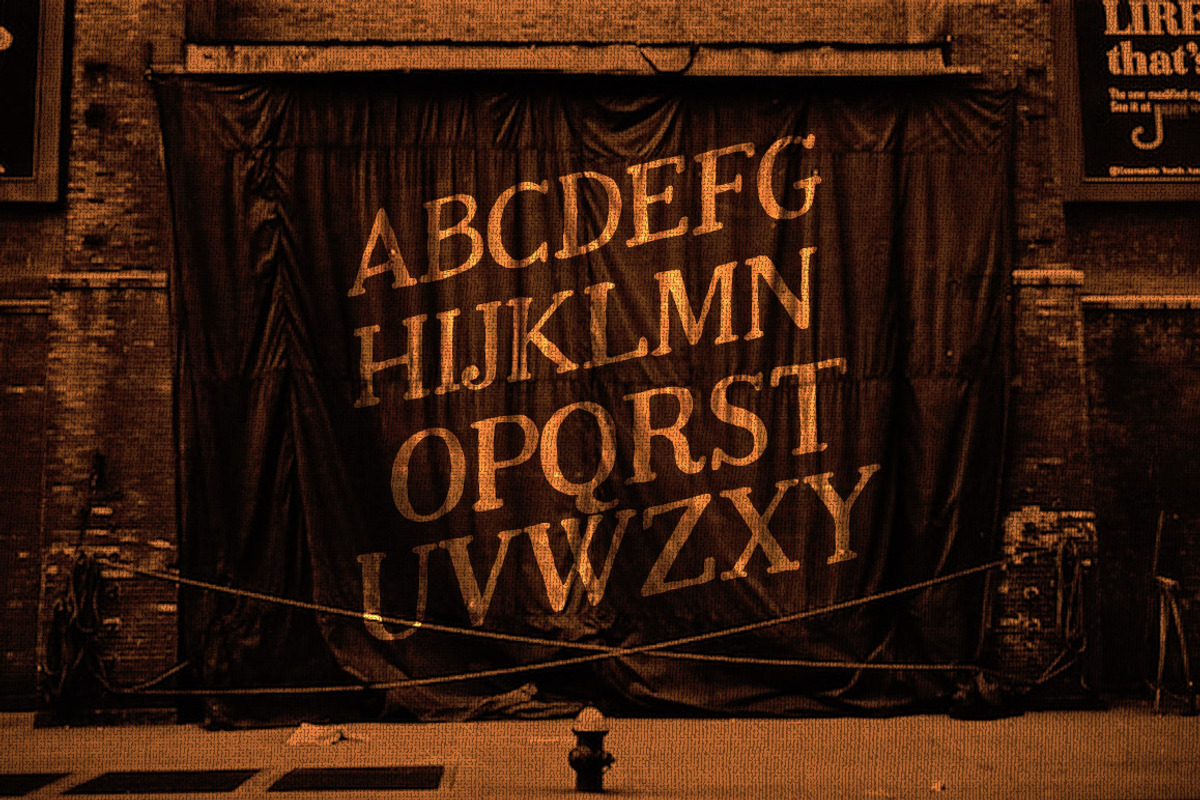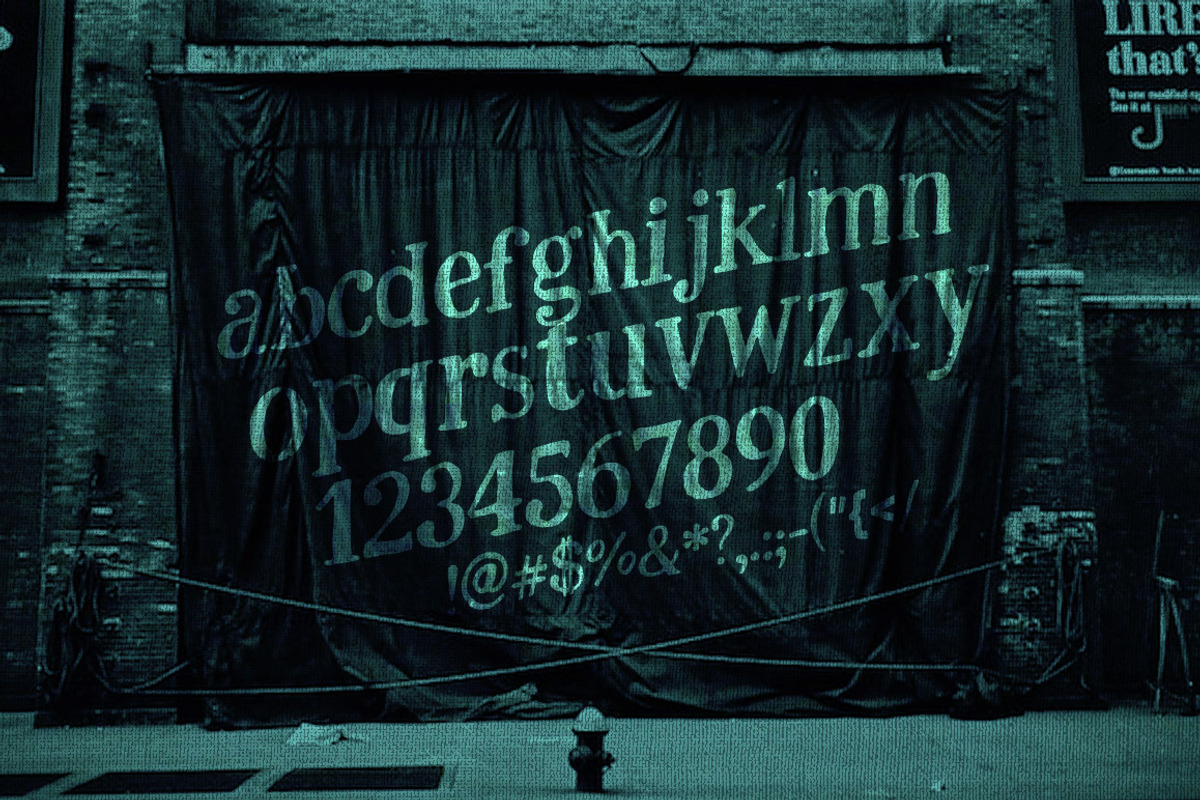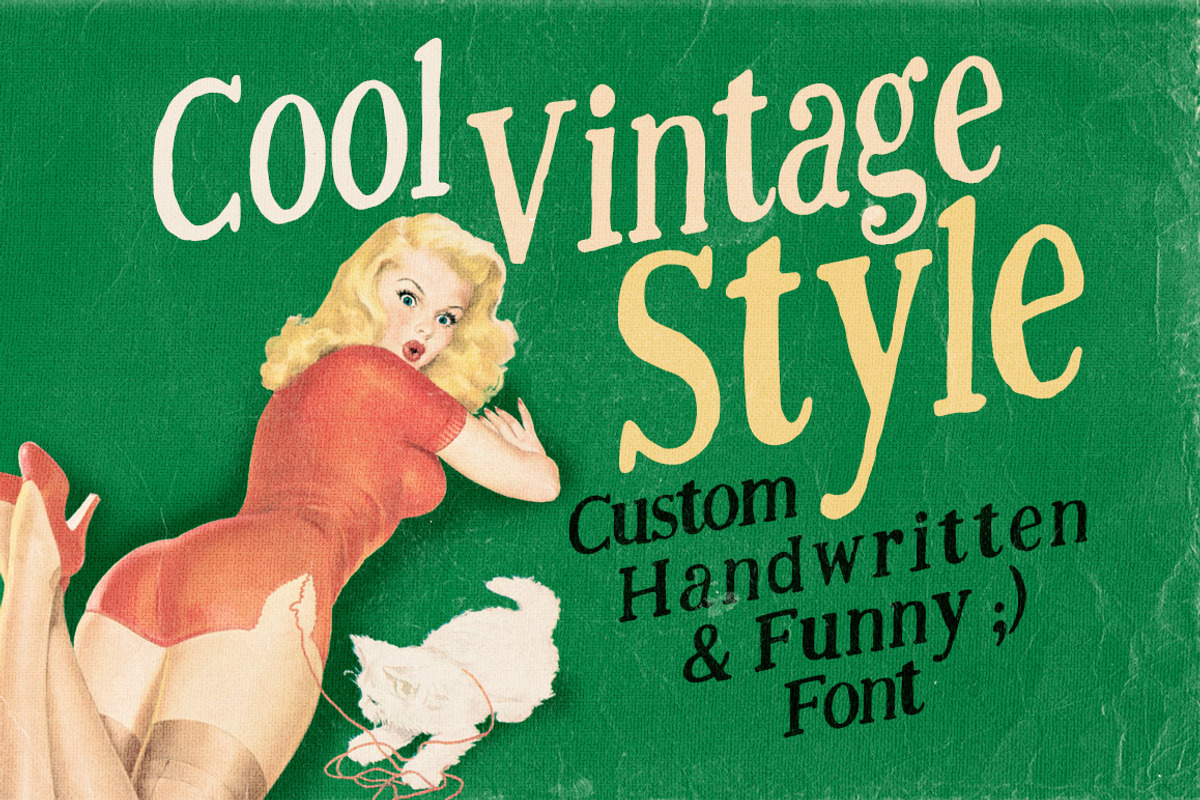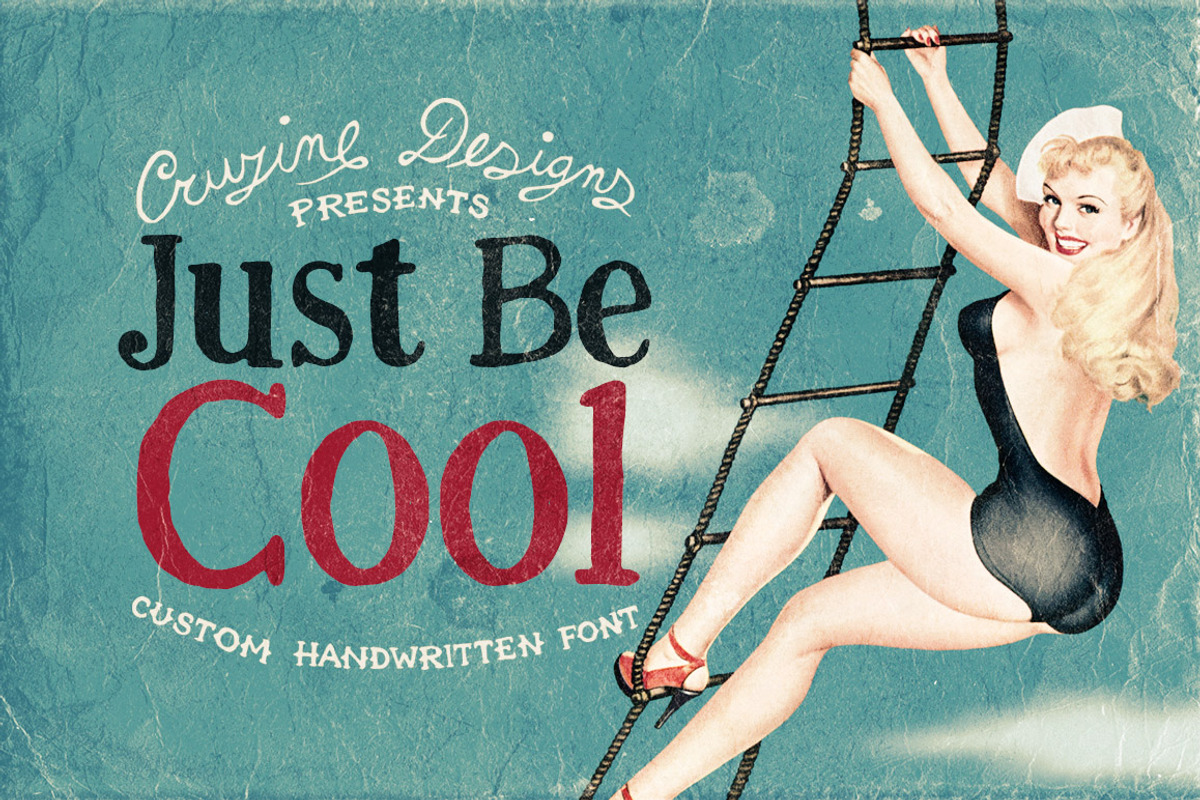
Just Be Cool Custom Font
Just Be Cool Custom Font by Cruzine is a font selected for branding, posters, packaging, typography.
Just Be Cool Custom Font by Cruzine fits naturally into Branding, posters, packaging, typography.